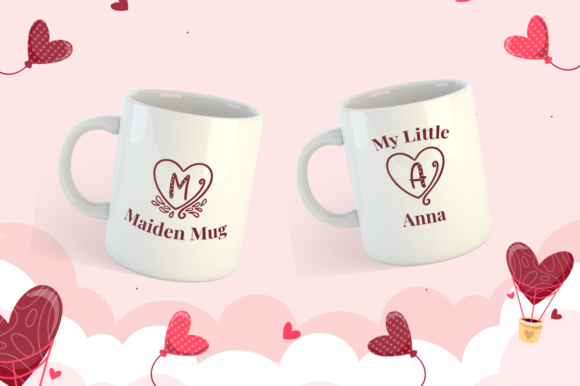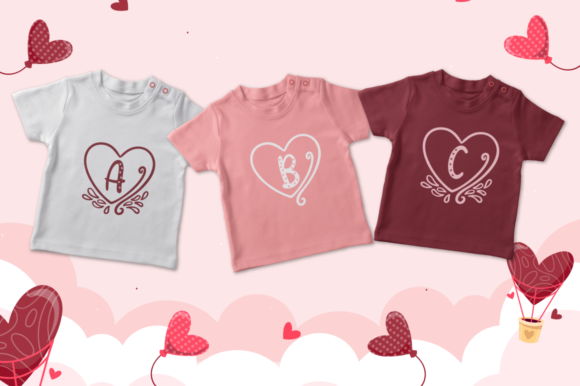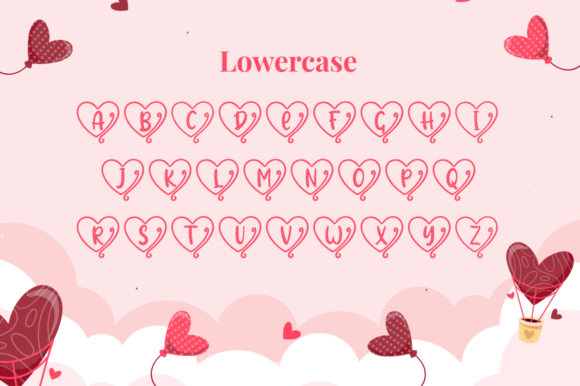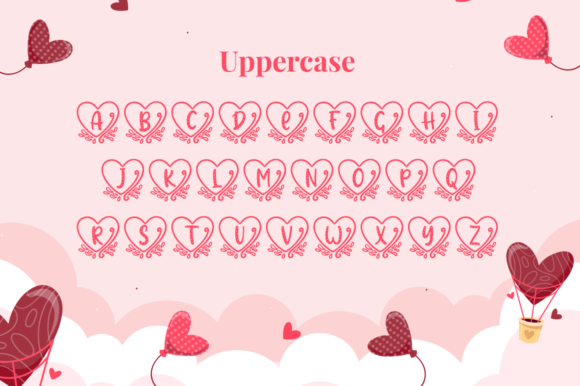
Get Ready to Fall in Love with Typography
Have you ever found yourself gazing at a beautifully designed wedding invitation or a heartfelt Valentine’s Day card, wondering how the designer managed to capture the essence of love and romance through typography? As a designer, you know that the right font can make all the difference in conveying emotions and creating a lasting impression.
That’s where the Hilani Heart Monogram Font comes in – a stunning, Valentine-themed decorative font designed to add a touch of love and whimsy to your designs. With its authentic style, this font is perfect for special occasions, business designs, logos, branding, social media posts, and wedding cards. Whether you’re looking to create a romantic atmosphere or simply want to add some visual interest to your designs, the Hilani Heart Monogram Font is a valuable addition to any designer’s toolkit.
Hilani Heart Monogram Font Key Features
- Unique Characteristics: Unique heart-shaped monogram design, perfect for weddings, baby showers, and other special occasions
Hilani Heart Monogram Font Review
I was excited to dive into the Hilani Heart Monogram Font and see what it had to offer. Here’s my honest review.
- The font is beautifully designed, with a unique blend of modern and classic elements that makes it perfect for a variety of projects.
- The monogram aspect of the font is well-executed, allowing for easy customization of initials and names.
- The font is highly versatile, suitable for both digital and print projects, including logos, branding, and typography-based artwork.
- The font is also well-behaved in terms of spacing and alignment, making it easy to work with.
- The font is only available in a limited number of languages, which may be a concern for users who need to support multiple languages.
The Hilani Heart Monogram Font is a beautifully designed and highly versatile font that is perfect for a variety of projects. While it may have some limitations, the benefits far outweigh the drawbacks. If you’re looking for a unique and high-quality font for your next project, I would definitely recommend giving Hilani Heart Monogram Font a try.
Use Hilani Heart Monogram Font for:
– Wedding invitations and decorations.
– Baby shower invitations and decorations.
– Valentine’s Day cards and decorations.